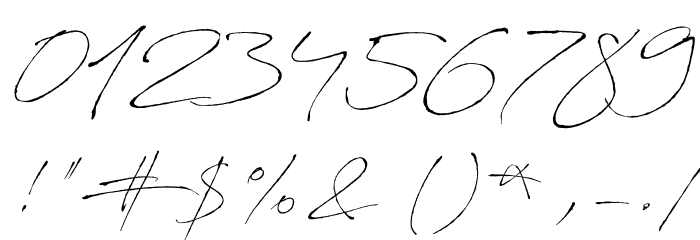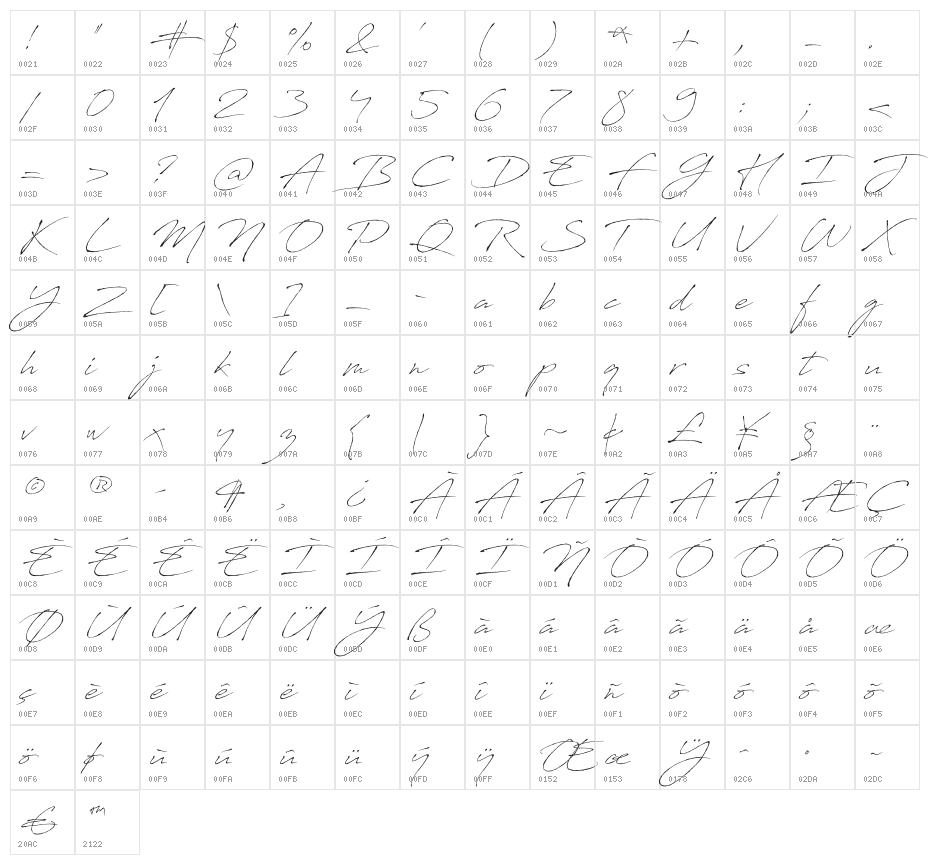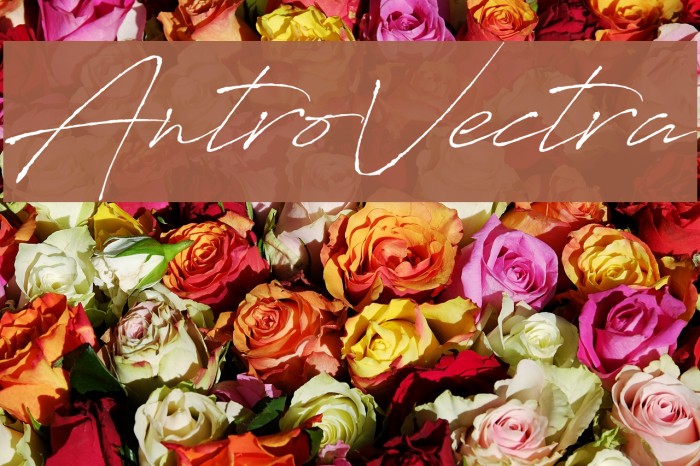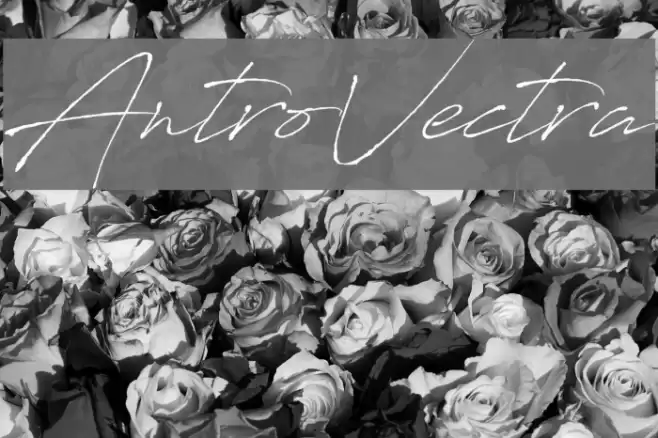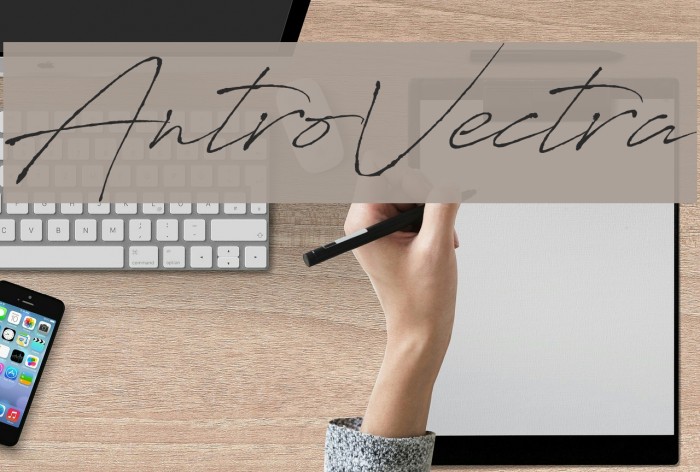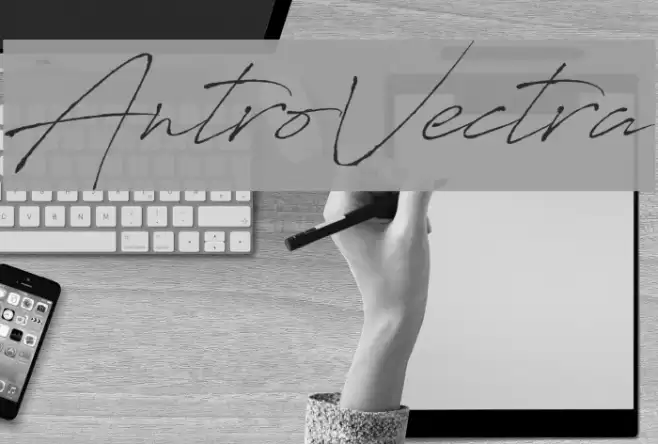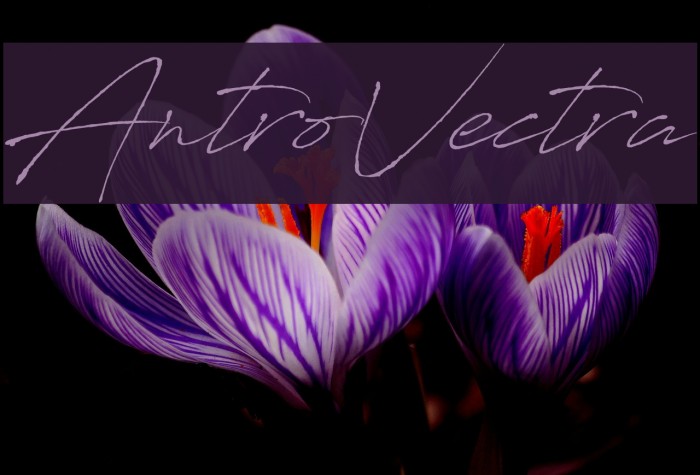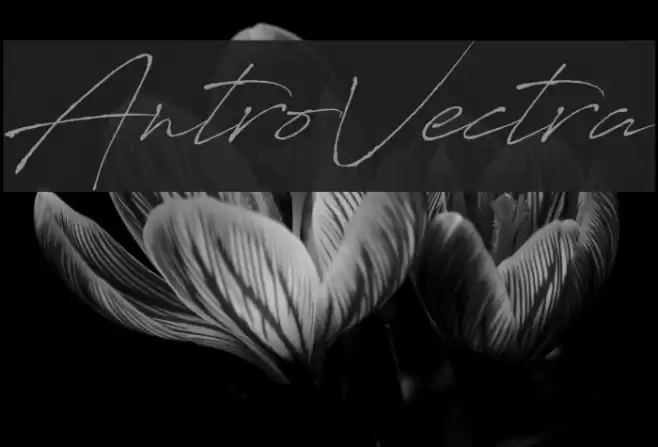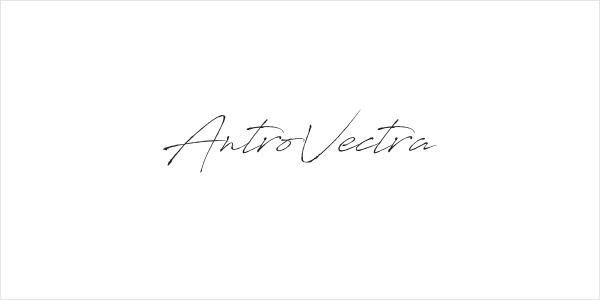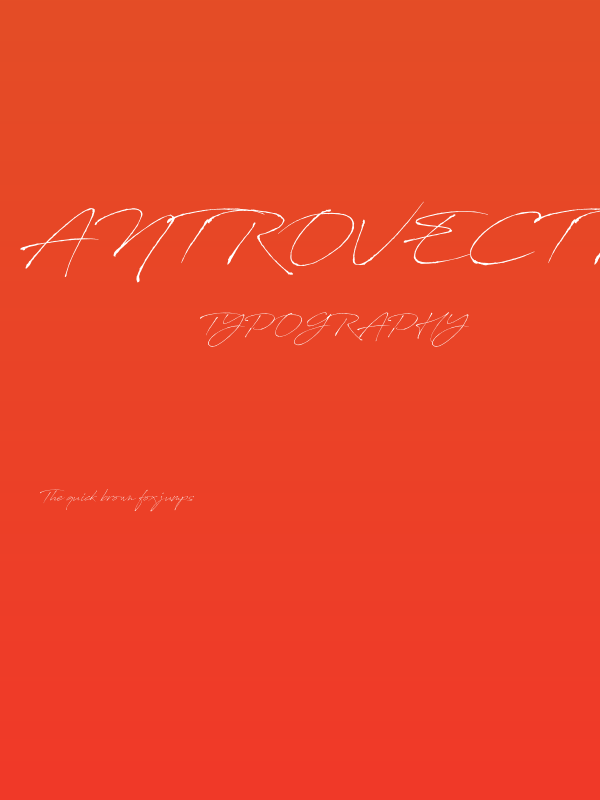
AntroVectra Font
AntroVectra Description
This font exudes a dynamic and fluid style, characterized by its elegant, cursive script that mimics natural handwriting. The letters are connected, creating a seamless flow that enhances its handwritten appearance. The strokes vary in thickness, adding a touch of sophistication and artistic flair. The uppercase letters maintain a consistent height, while the lowercase letters exhibit a slight slant, contributing to the font's graceful and casual demeanor. The numerals and special characters are designed with the same fluidity, ensuring uniformity across all characters. This font is perfect for projects that require a personal touch, such as invitations, greeting cards, or branding materials that aim to convey elegance and creativity.
| Overall Style | Elegant, Artistic |
| Proposed Projects | Ideal for wedding invitations, personal branding, greeting cards, and artistic projects. |